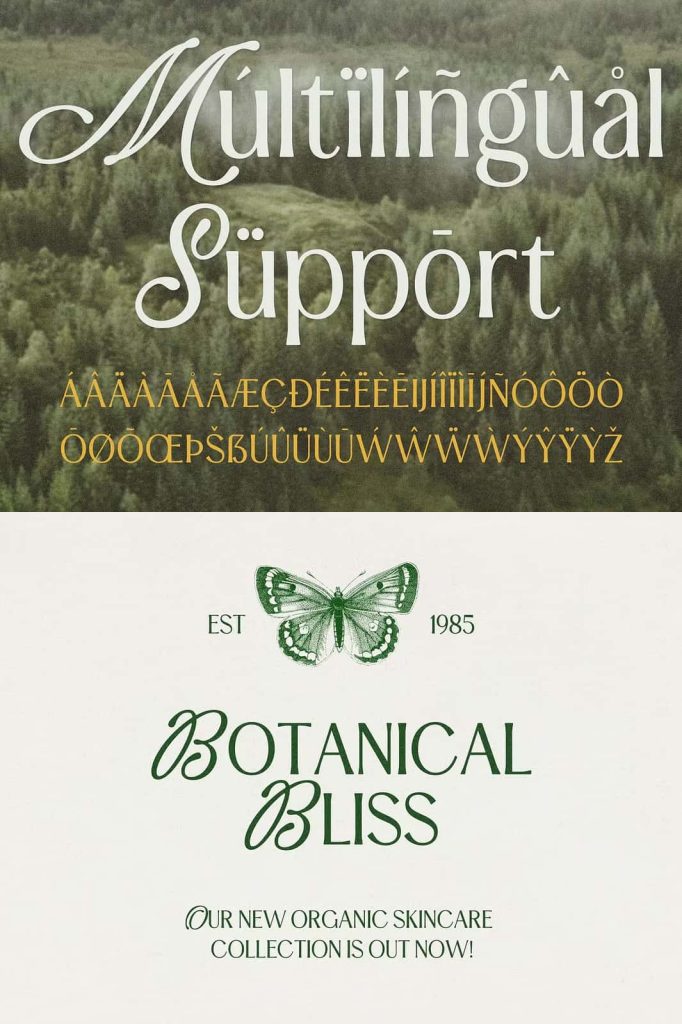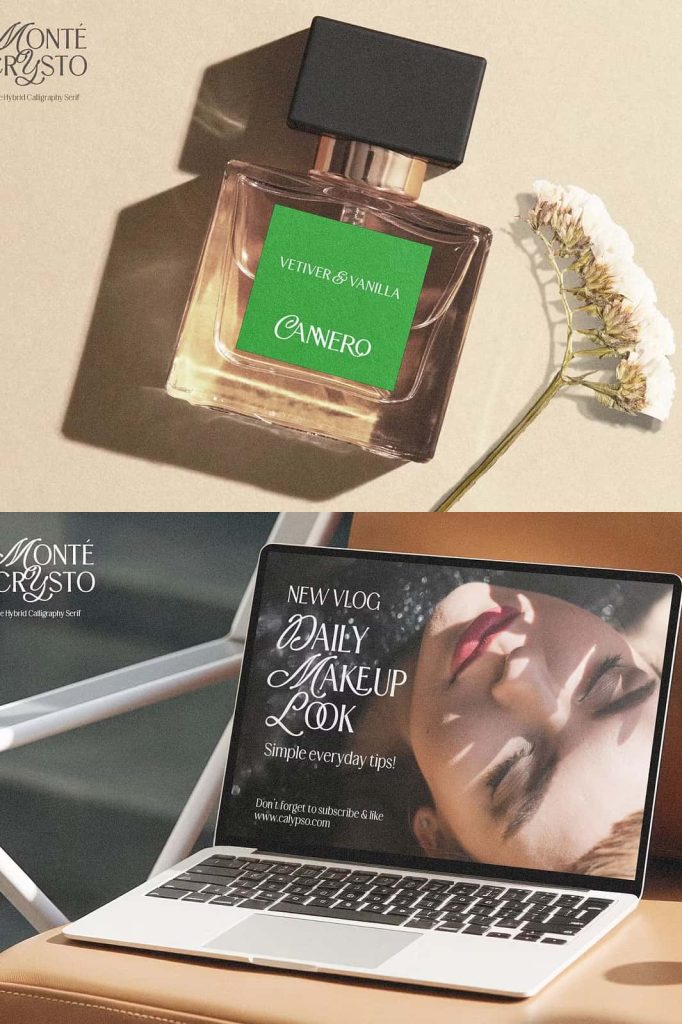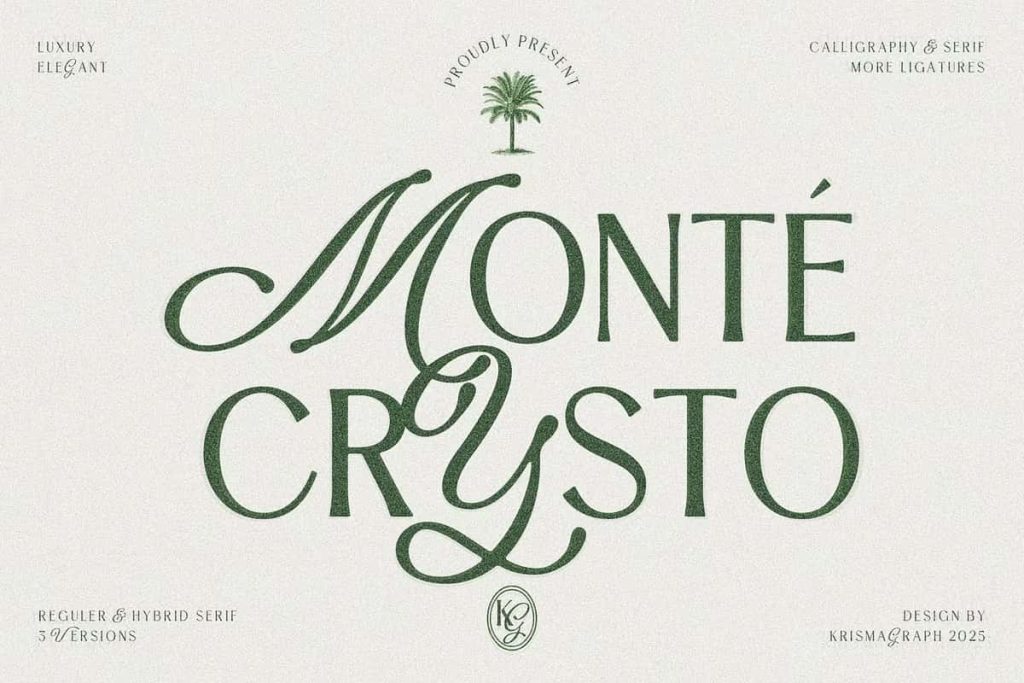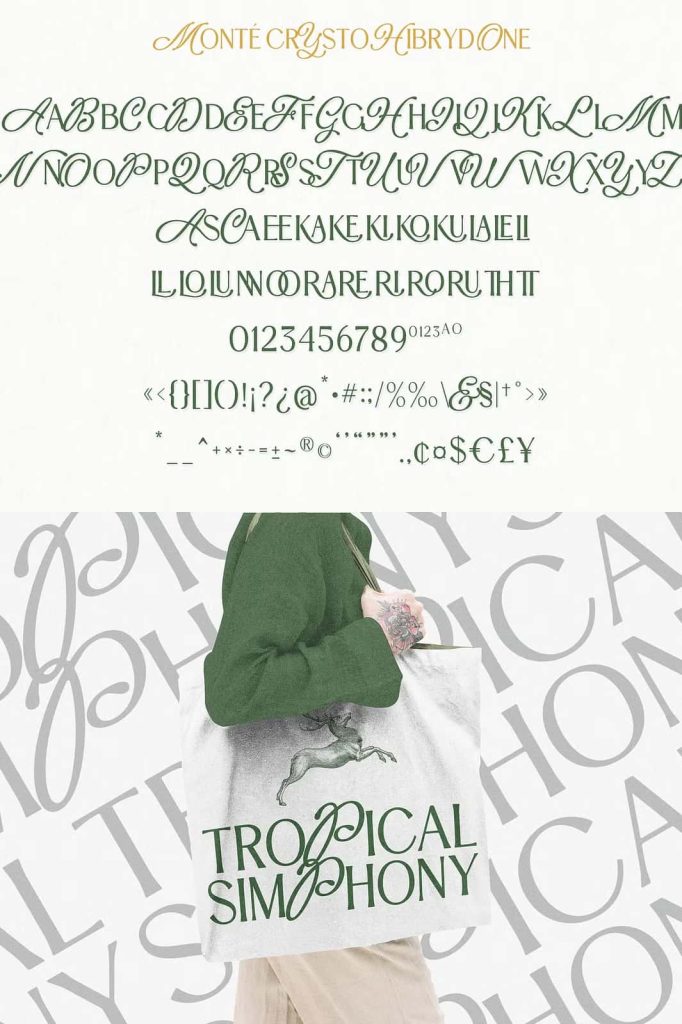
Monte Crysto Elegant Calligraphy Serif Typeface
Monte Crysto presents a refined and captivating typeface that blends the graceful flow of calligraphy with the structure and authority of serif design. This sophisticated font captures timeless elegance while introducing a subtle nostalgic charm that enhances any visual composition. Carefully crafted to deliver both beauty and versatility, Monte Crysto allows designers to create polished and expressive typography across a wide range of creative projects.
A Harmonious Fusion of Calligraphy and Serif
Monte Crysto stands out by combining two classic typographic styles into one cohesive design. The calligraphic influence brings fluidity, elegance, and artistic movement, while the serif foundation adds clarity, balance, and professionalism. This fusion results in a typeface that feels both expressive and structured, making it suitable for projects that demand both creativity and readability.
The font actively enhances visual storytelling by offering refined letterforms with carefully shaped curves, delicate strokes, and distinctive serifs. Each character contributes to a cohesive aesthetic that feels luxurious and timeless, allowing designers to communicate messages with confidence and style.
Crafted for Sophisticated Visual Impact
Monte Crysto enables designers to build compositions that feel intentional and elegant. Its unique combination of styles allows you to create contrast within a single typeface, adding depth and visual interest without relying on multiple fonts. This approach strengthens design consistency while maintaining a rich and engaging appearance.
Three Distinct Versions for Creative Freedom
Monte Crysto includes three carefully designed variations that expand its creative potential: Regular, Hybrid One, and Hybrid Two. Each version offers a unique interpretation of the core design, giving designers the flexibility to choose the style that best fits their vision.
The Regular version delivers a balanced and classic look, making it ideal for clean and elegant layouts. Hybrid One introduces more expressive calligraphic elements, adding personality and artistic flair. Hybrid Two pushes the creative direction further by blending decorative details with refined structure, creating a more distinctive and eye-catching appearance.
Adapt to Different Design Needs
With these three variations, Monte Crysto adapts effortlessly to different design contexts. You can use one version for consistency or combine multiple styles to create contrast and hierarchy within your layout. This flexibility empowers designers to explore creative directions while maintaining a cohesive visual identity.
Perfect for Elegant Branding and Identity
Monte Crysto elevates branding projects by delivering a sense of sophistication and timeless appeal. Its elegant forms help brands communicate professionalism, luxury, and authenticity. Whether designing logos, brand marks, or identity systems, this typeface provides a strong foundation for creating memorable visual identities.
Designers can actively use Monte Crysto to highlight brand names, taglines, and key messaging elements. Its refined aesthetic ensures that every piece of content feels intentional and visually compelling.
Enhance Editorial and Print Design
Monte Crysto performs exceptionally well in editorial layouts, magazines, and printed materials. Its combination of readability and elegance makes it suitable for headlines, titles, and featured text. The font adds a layer of sophistication that enhances the overall presentation of content.
By incorporating Monte Crysto into print design, creators can achieve a polished and professional look that captures attention while maintaining clarity. Its timeless character ensures that designs remain relevant and visually appealing over time.
Elevate Invitations and Luxury Projects
Monte Crysto shines in projects that require a refined and personal touch, such as invitations, event materials, and luxury branding. Its calligraphic elements introduce a sense of intimacy and craftsmanship, while the serif structure maintains elegance and readability.
Versatile for Digital and Creative Applications
Monte Crysto adapts seamlessly to digital platforms, including websites, social media graphics, and marketing materials. Its distinctive style helps content stand out in crowded visual environments while maintaining a cohesive and professional tone.
Designers can use the different versions to create engaging compositions that feel dynamic and well-balanced. This versatility ensures that Monte Crysto remains a valuable asset across both print and digital design projects.
Bring Timeless Elegance to Your Designs
Monte Crysto empowers designers to create work that feels elegant, expressive, and enduring. Its unique blend of calligraphy and serif elements offers a sophisticated visual language that enhances any project. By combining artistic detail with structural clarity, this typeface transforms typography into a powerful design element.
Choose Monte Crysto to elevate your creative projects with a font that delivers both beauty and functionality. Its timeless charm, combined with modern versatility, ensures that your designs leave a lasting impression.